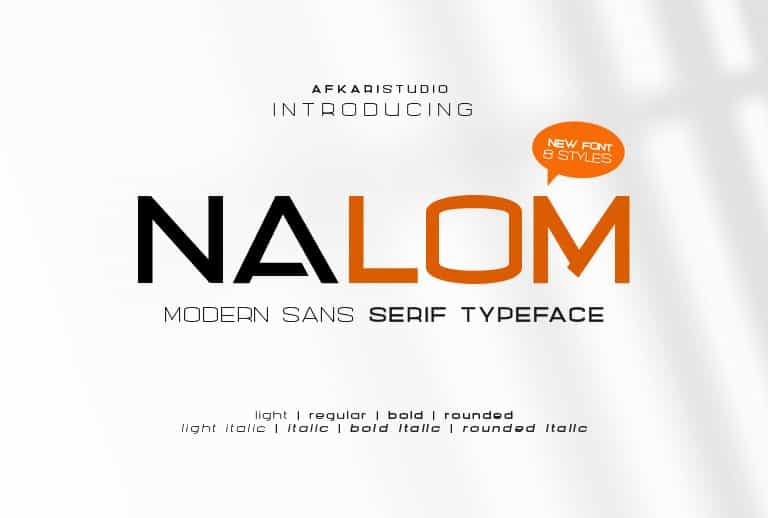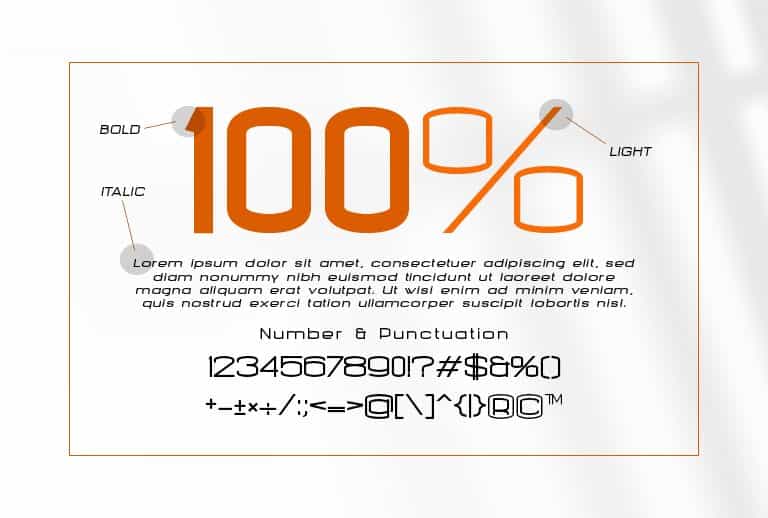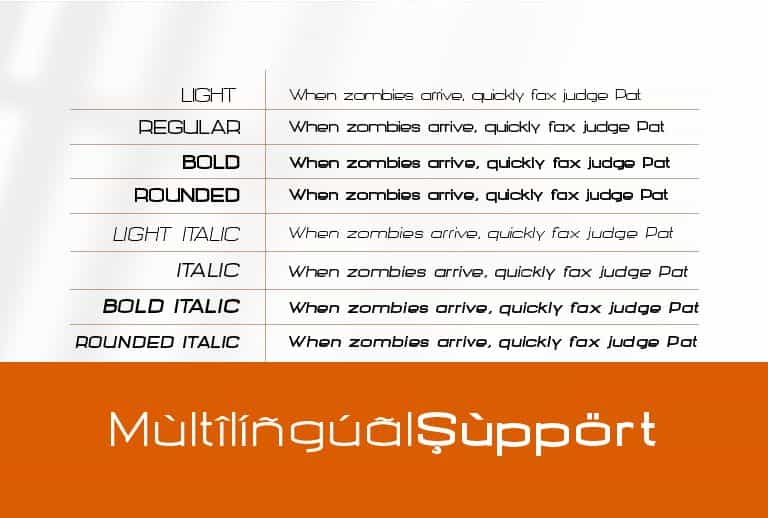
Nalom is a modern Sans Serif Typeface Font Family that encompasses eight weights of fonts: Regular, Light Bold, Rounded Italic Bold Italic as well as Rounded Italic Bold. Uppercase and Lowercase variants are both included as well as special alternates and ligatures to provide additional versatility in use cases such as logotypes, user interfaces or short texts, magazines or long text – perfect for logotypes!